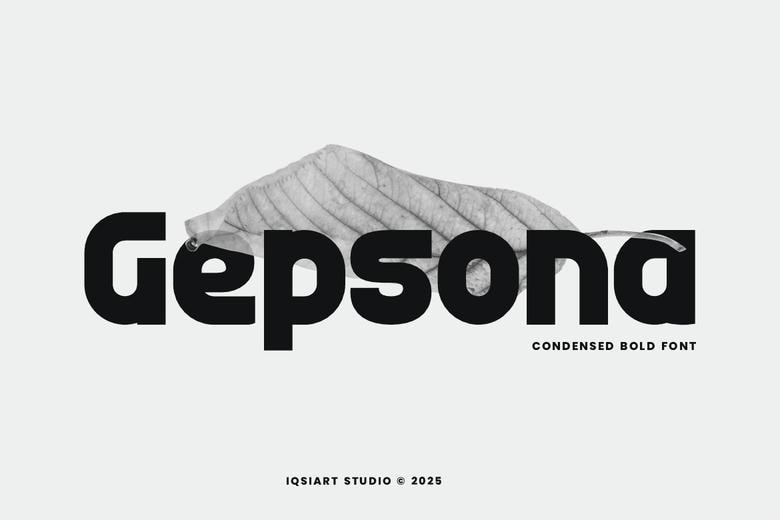
Gepsona Font
Gepsona is a sleek and powerful condensed font designed for impact. With its bold, tight letter spacing and clean lines, this typeface is perfect for headlines, branding, posters, and editorial design. Its contemporary and professional look makes it ideal for modern marketing, logo design, and fashion branding.
Gepsona Sans Serif Font